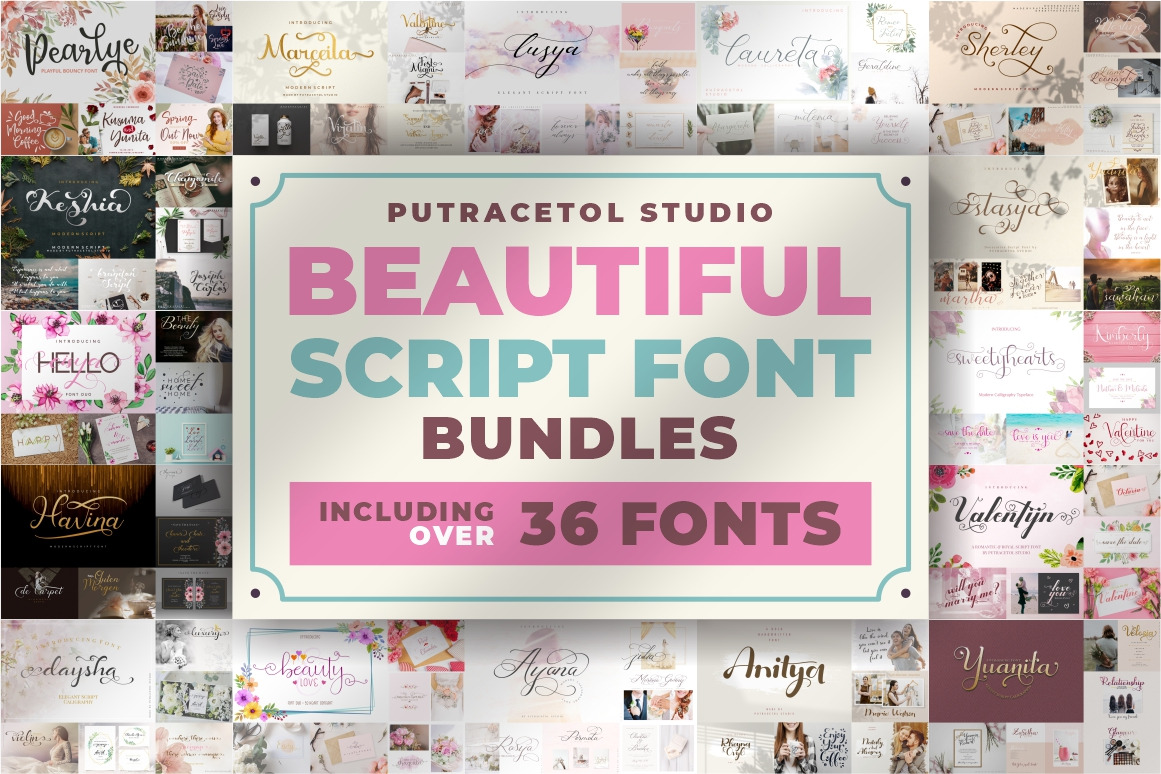
Best Beautiful Script Font Bundle
Get a huge typographic bundle featuring a collection of 17 unique font families and a total of 27 fonts with this exclusive deal!
- Tons of OpenType features – stylistic alternates, swashes, ligatures, punctuation, symbols and more.
- Suitable for logos, invitation cards, apparels, headlines, business cards, inspirational quotes, t-shirt, posters, wedding design, packaging, and a lot more!